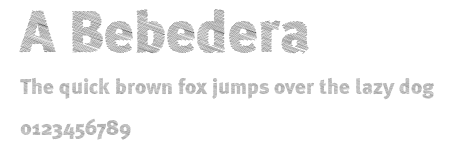
• Font Name: A Bebedera
• Font Style: Heavy
• Full Font Name: ABebedera-Heavy
• PostScript Name: ABebedera-Heavy
• Designer: deFharo
• Manufacturer: deFharo
A Bebedera.otf is a modern, elegant sans-serif font designed for ultimate readability and visual harmony. Perfect for branding, headlines, web design, and print materials.